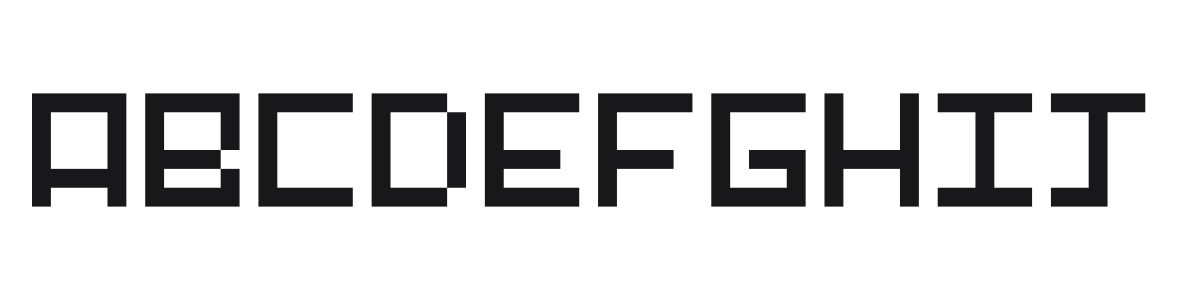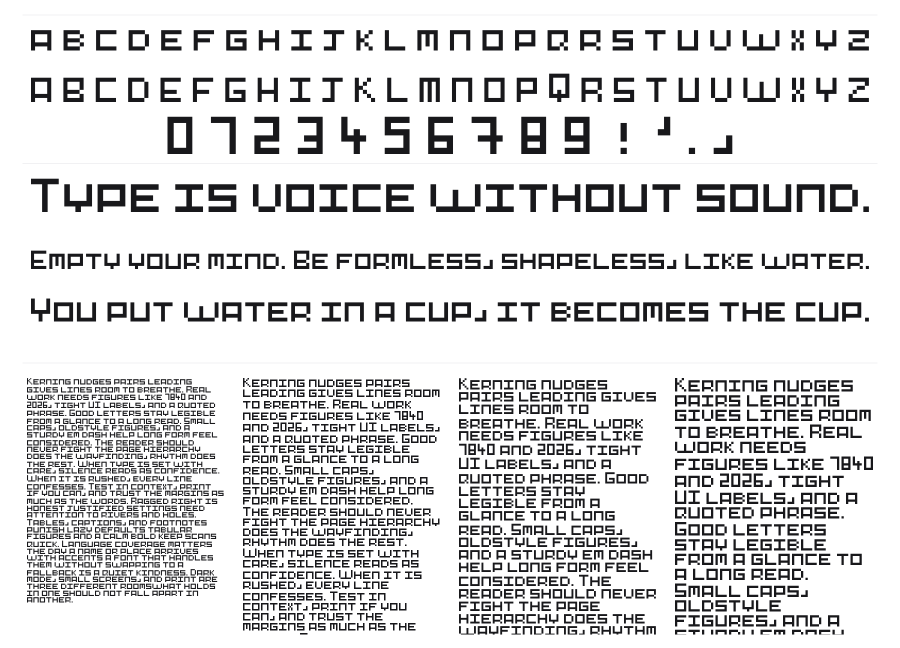
Pixel-Art
Pixel-Art is a bold bitmap font built from uniform square pixels, evoking classic 8-bit arcade and early home-computer screens. Every character is constructed on a strict grid with hard corners and zero curves, creating an uncompromising retro-digital look. It works best at large sizes where the pixel structure reads clearly.